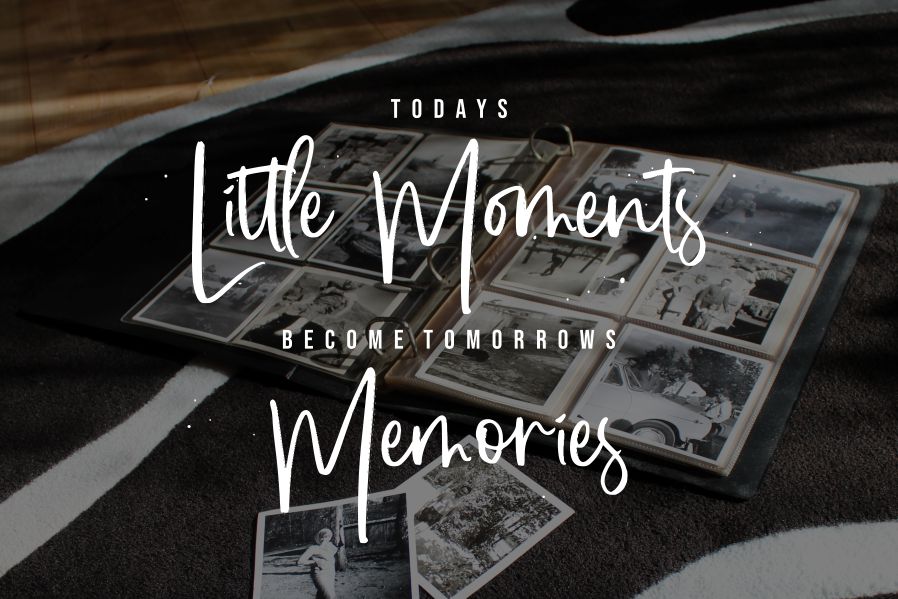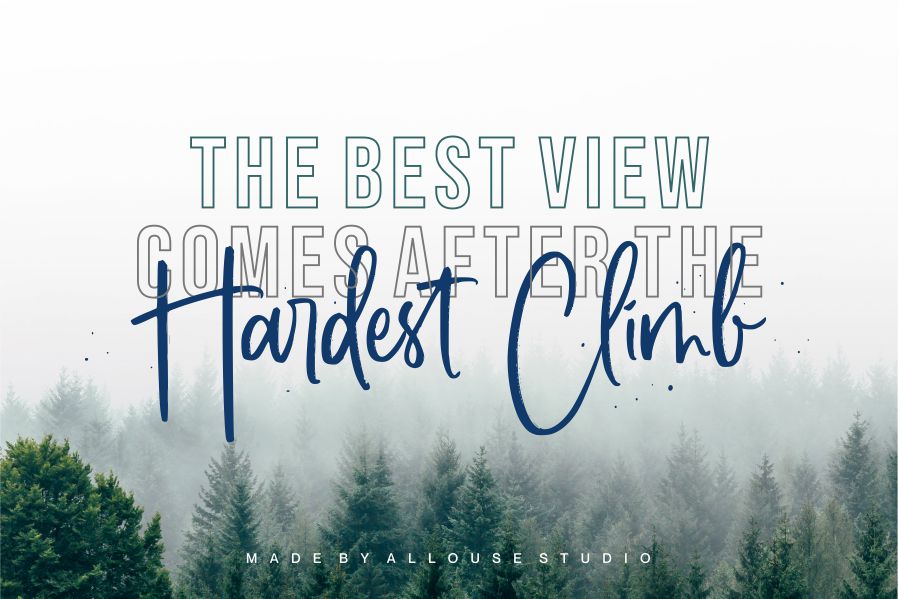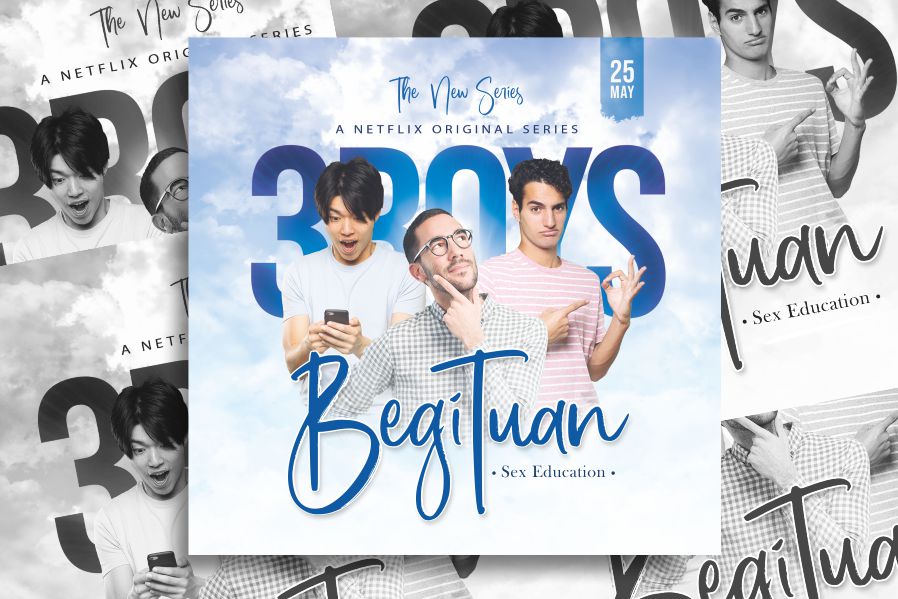
History Stranger Font
History Stranger Script Font
This is a beautiful script font. It is perfect for product packaging, branding project, magazine covers, social media, wedding, or just used to express words above the background.